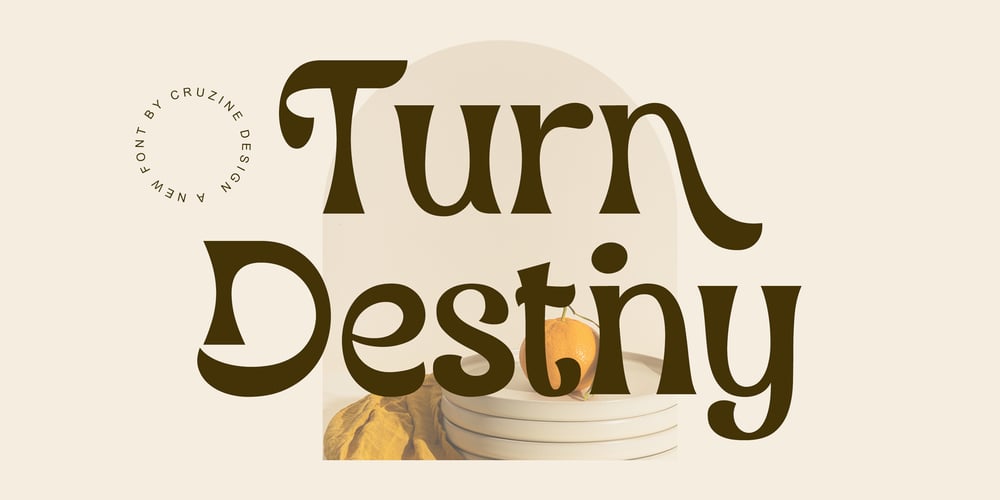
Turn Destiny Font Family was designed by Peter Olexa and published by Deeezy. Turn Destiny contains 1 styles and family package options. Trendy, bold & modern style sans font for your fancy projects. Elegant, funny and classic style on Amarillo font will be great for any branding project. Lot of alternates and ligatures will help you to create unique and original logo design or website header! Enjoy :)-Multilingual support-Lot of alternate characters & ligatures-Great for modern branding projects!